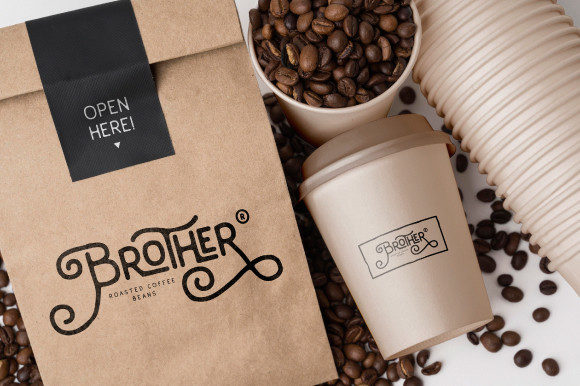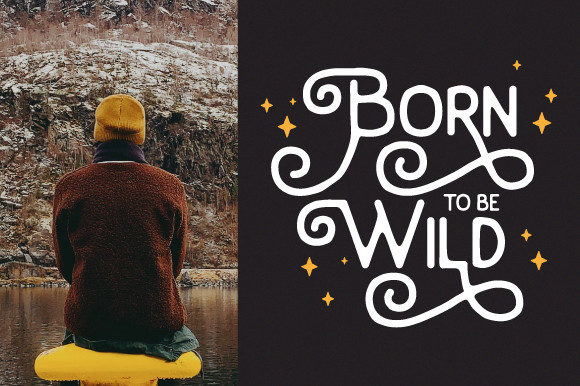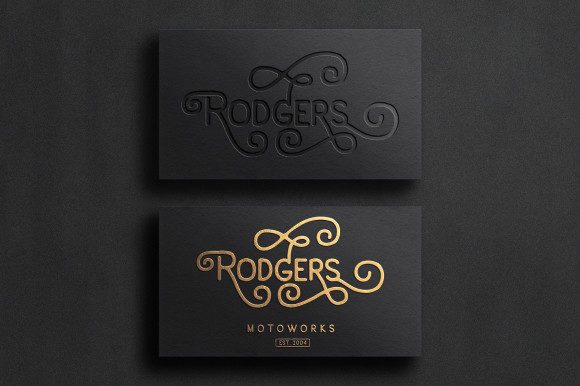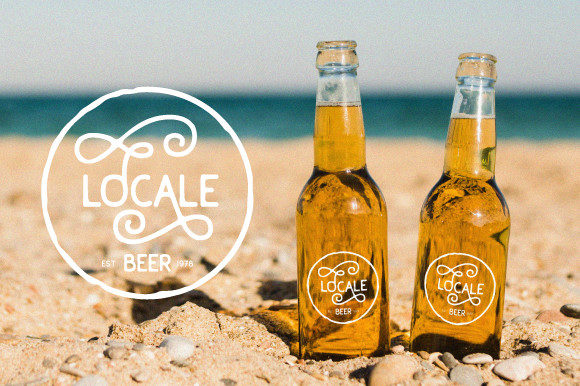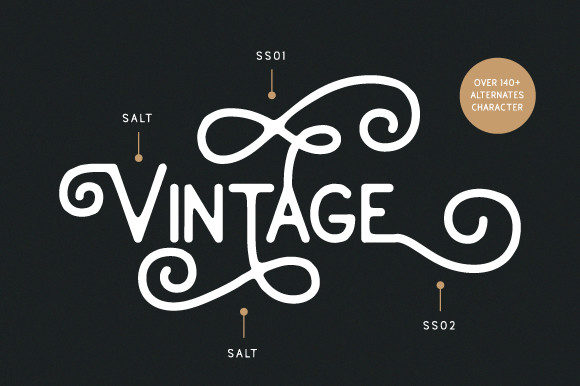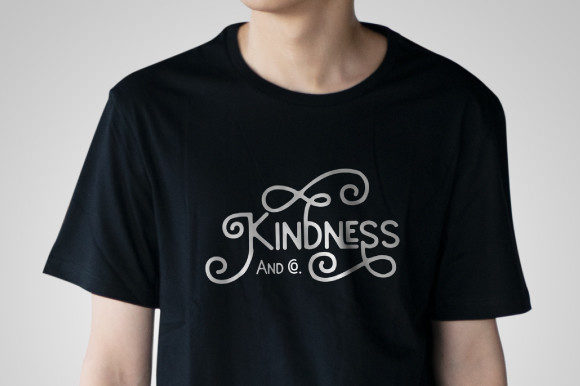
The Elusive Perfect Font: My Encounter with Distant Neighbors
I’ll never forget the frustration of working on a wedding invitation design, hours spent searching for that one perfect font that would make the client’s vision come alive. The project was on a tight deadline, and my usual go-to fonts just weren’t cutting it. That’s when I stumbled upon Distant Neighbors, a modern display font that would change the game for me and countless other designers, crafters, and creative hobbyists out there.
An Honest Review of Distant Neighbors Font
So, what makes Distant Neighbors a standout in the world of fonts? Let’s dive into the good stuff and a few quirks I’ve encountered.
- ✨ Versatility: This font is incredibly versatile, looking great on wedding invitations, thank you cards, quotes, greeting cards, logos, business cards, and more.
- ✅ PUA Encoding: Being PUA encoded means accessing all the glyphs and swashes is a breeze, giving your designs that extra customized touch.
- 💫 Modern Aesthetic: Distant Neighbors boasts a cool, modern look that’s sure to elevate any design.
While Distant Neighbors has won me over, there are a couple of things to keep in mind:
- ⚠️ Learning Curve: With so many glyphs and swashes at your disposal, it might take some time to get familiar with how to access and use them effectively.
- 🤔 Pairing: Given its modern and somewhat bold personality, finding the right font pairings can be a bit tricky. Experimentation is key.
The Story Behind Distant Neighbors
While the origins of Distant Neighbors might not be well-documented, it’s easy to imagine a designer sitting in a quaint café, surrounded by eclectic decor and inspirational boards, crafting a font that would one day become a favorite among creatives. The aim was to create a font that’s not only beautiful but also highly versatile and customizable, catering to the needs of modern designers.
| Font Name | Distant Neighbors Font |
| Author | Prioritype |
Q: What makes Distant Neighbors suitable for wedding invitations?
A: Its modern yet elegant look, combined with the ability to customize with swashes and glyphs, makes it perfect for wedding invitations that require a personal touch.
Q: Is Distant Neighbors difficult to pair with other fonts?
A: While it can be a bit challenging due to its bold personality, experimenting with font pairings and using it as an accent font can yield beautiful results.
Q: Does Distant Neighbors support OpenType features?
A: Yes, being PUA encoded, it allows for easy access to a range of glyphs and swashes, enabling you to take full advantage of OpenType features in compatible software.